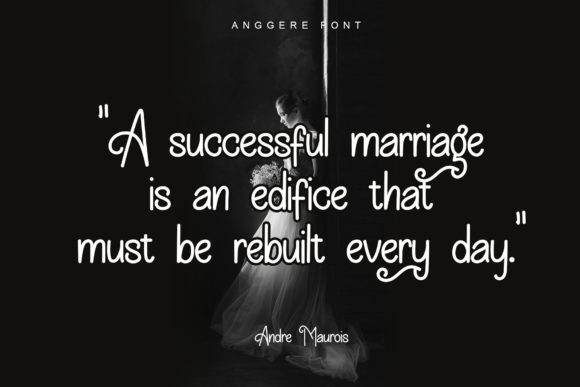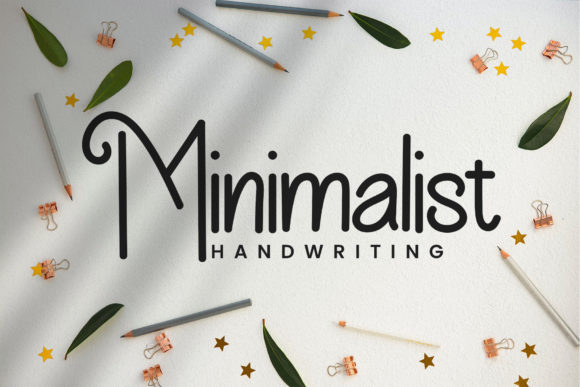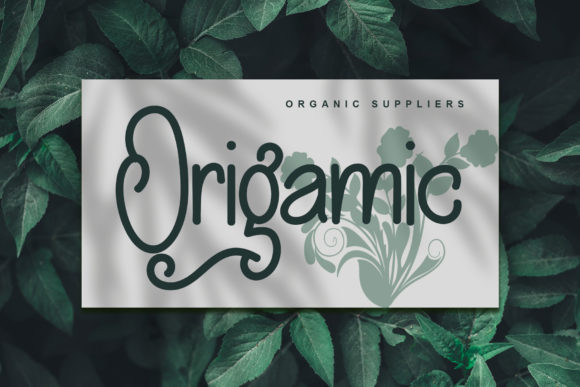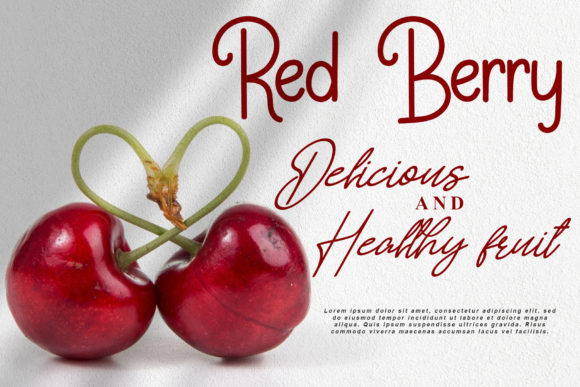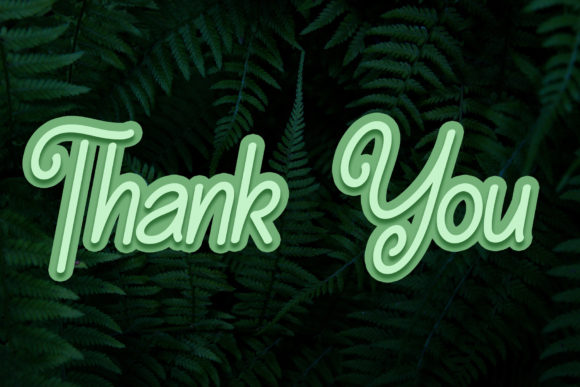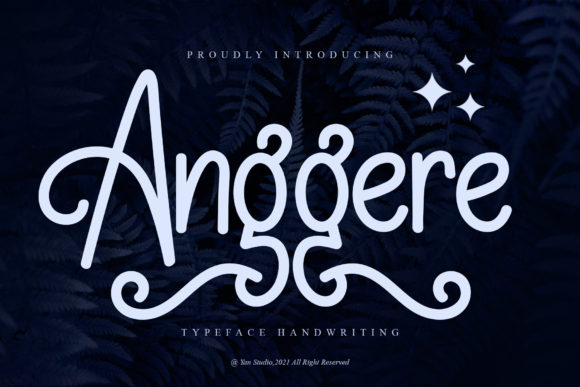
Discover the Charm of Anggere Font: A Sweet and Whimsical Handwritten Delight
Are you on the hunt for a font that adds a touch of sweetness and whimsy to your designs? Look no further than Anggere Font! This delightful handwritten font is perfect for a wide range of creative projects, from crafting and scrapbooking to branding and digital design. In this article, we’ll dive into the world of Anggere Font and explore its features, benefits, and uses.
What is Anggere Font?
Anggere Font is a beautiful, handcrafted font that boasts a sweet, whimsical, and dainty style. Its neat and simple design makes it incredibly versatile, allowing it to be used in a variety of contexts. Whether you’re creating a blog post, social media graphic, or marketing material, Anggere Font is sure to add a touch of personality and charm to your design.
Key Features of Anggere Font
- Handwritten style: Anggere Font features a genuine, handwritten look that’s perfect for adding a personal touch to your designs.
- Sweet and whimsical: This font’s playful, carefree vibe makes it ideal for projects that require a lighthearted and airy feel.
- Dainty and simple: Anggere Font’s neat and uncomplicated design ensures that it pairs well with a wide range of graphics, images, and backgrounds.
- Highly versatile: From digital designs to print materials, Anggere Font is suitable for a vast array of creative projects.
Benefits of Using Anggere Font
So, why should you choose Anggere Font for your next design project? Here are just a few benefits of using this lovely font:
- Adds personality to your designs: Anggere Font’s unique, handwritten style helps your designs stand out from the crowd and adds a touch of personality.
- Easy to read: Despite its whimsical nature, Anggere Font remains clear and easy to read, making it perfect for body text and captions.
- Pairs well with other fonts: Anggere Font’s simple design allows it to be paired with a wide range of other fonts, making it a great addition to any designer’s font library.
- Great for crafty projects: Anggere Font is a perfect fit for crafty projects like scrapbooking, journaling, and card making.
Uses for Anggere Font
Anggere Font’s versatility makes it suitable for a wide range of design projects, including:
- Digital designs: Use Anggere Font in social media graphics, blog posts, and website designs to add a touch of whimsy and personality.
- Print materials: Add Anggere Font to your print designs, such as brochures, flyers, and business cards, to give them a personal and creative touch.
- Crafting and scrapbooking: Anggere Font is perfect for journaling, scrapbooking, and card making projects.
- Branding and marketing: Use Anggere Font in your branding and marketing materials to create a friendly, approachable tone.
Anggere Font is a sweet, whimsical, and dainty handwritten font that’s perfect for designers and crafters looking to add a touch of personality to their projects. With its neat and simple style, Anggere Font is highly versatile and can be used in a wide range of design contexts. Whether you’re creating digital designs, print materials, or crafty projects, Anggere Font is sure to become your go-to font. So why not give it a try and see the charm of Anggere Font for yourself?